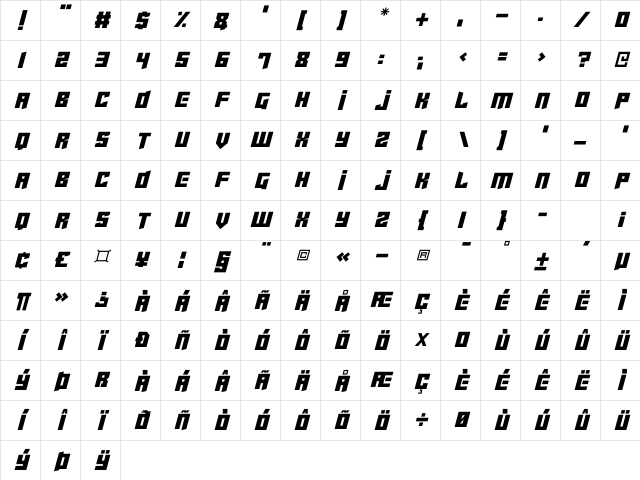
Cyberjunkies Italic Free Font
Cyberjunkies Italic
Design Context for Cyberjunkies
Cyberjunkies has a distinctly futuristic character, with geometric precision and clean angles that feel at home in technology, gaming, and sci-fi contexts. The slanted form adds forward momentum and visual energy.
Pro Tip: Try Cyberjunkies with generous letter-spacing in UI labels and navigation - the geometric forms benefit from room to breathe.